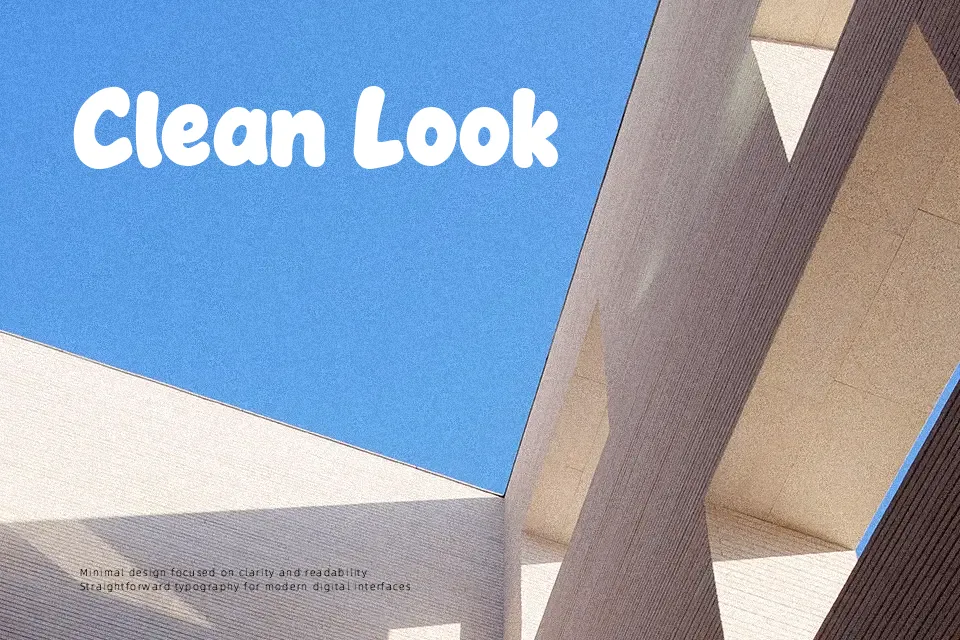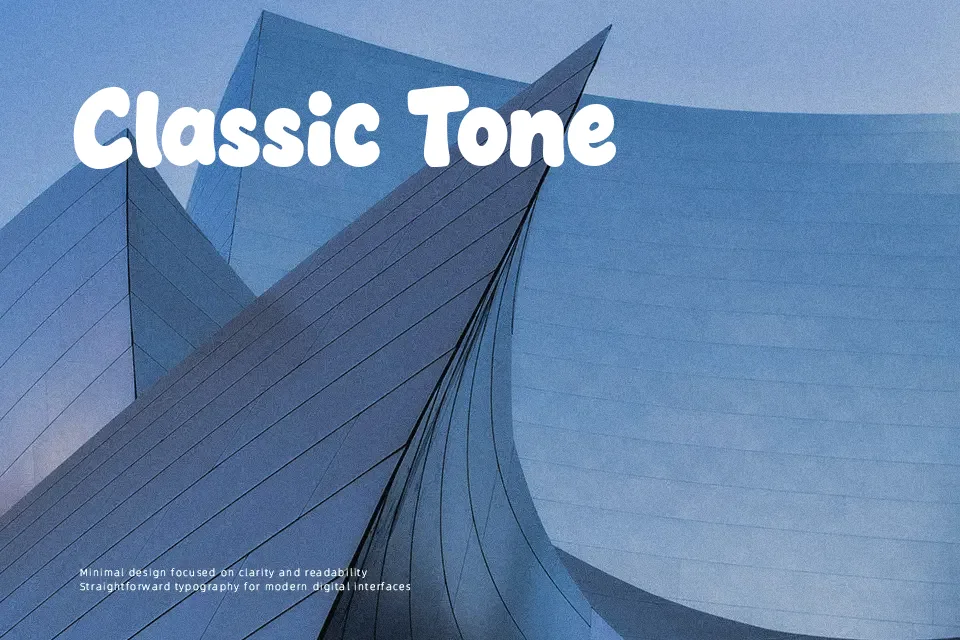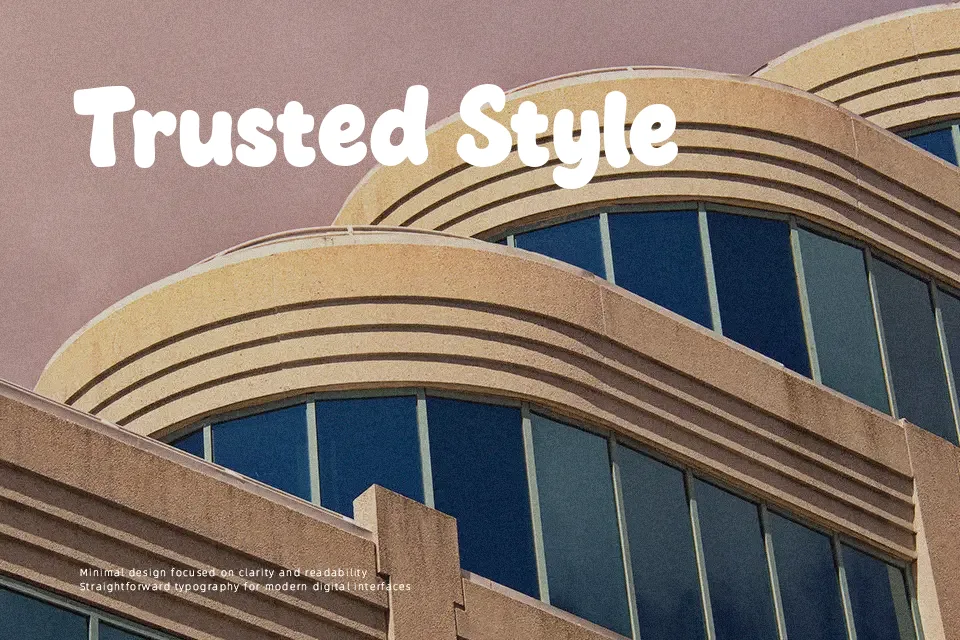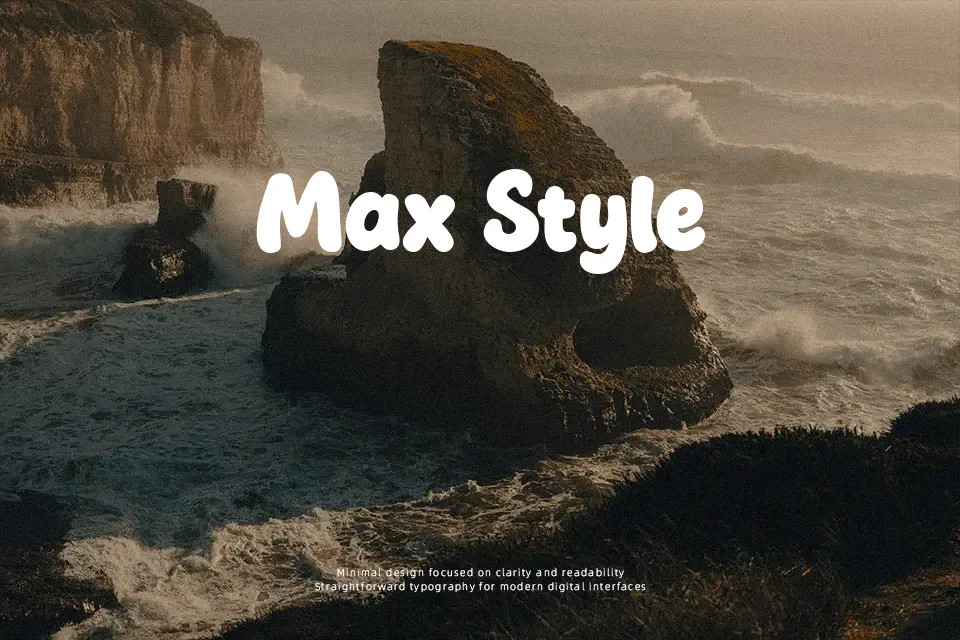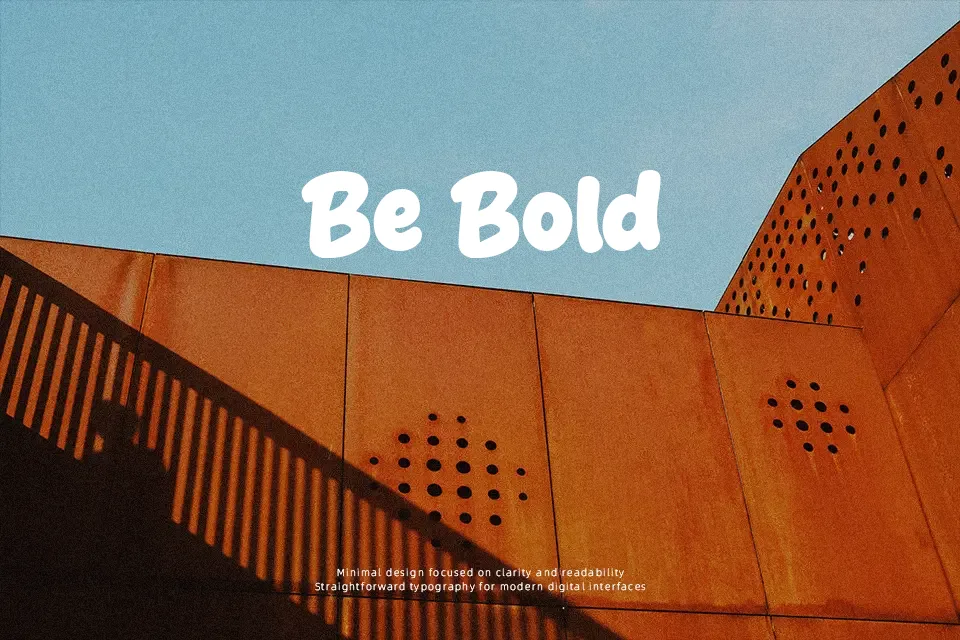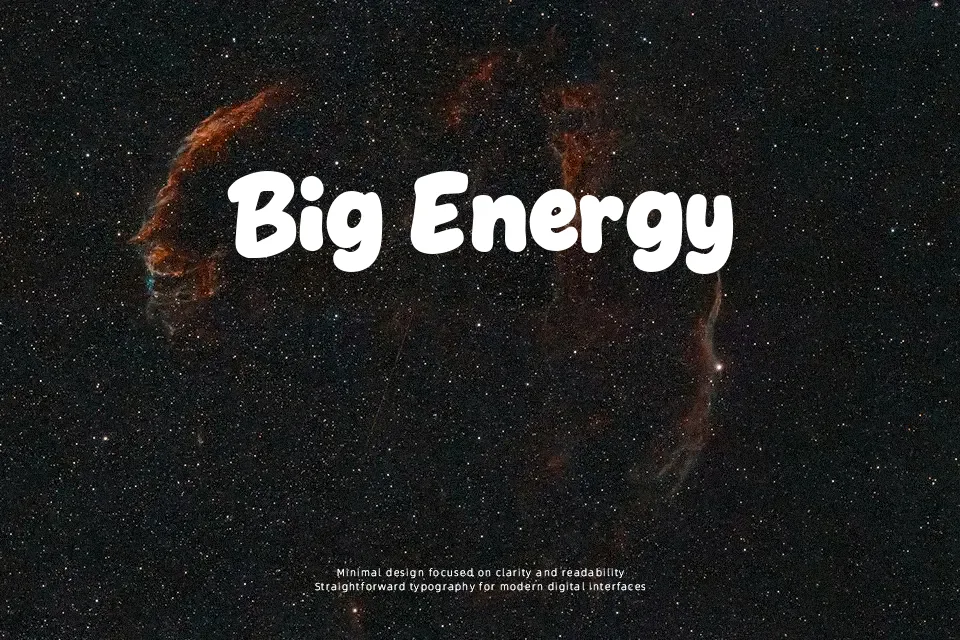
Biscuit Glitch Font
Designed by BlackFridayFont FMF
Biscuit Glitch is a delightful, rounded display typeface characterized by its thick, bubbly strokes and hand-drawn structure. The characters maintain a bold yet soft presence, utilizing generous curves and a consistent weight to project an approachable, casual style. It captures an animated essence that easily brightens up a layout. This energetic design performs well in playful apparel branding, colorful packaging, or festive event posters where a lighthearted tone is necessary. However, due to its distinctly casual appearance, it struggles in corporate environments or dense body text where strict legibility and serious professionalism matter most. Compared to rigid geometric alternatives, Biscuit Glitch feels much more organic, providing a distinct identity for imaginative, youth-oriented projects.
– Engaging children’s book titles
– Vibrant product packaging for toys
– Casual party invitations and event posters
– Professional corporate reports
– Lengthy paragraphs or small body text
– Luxury or high-end fashion branding
Perfect for branding, invitation, and kids, with a cute and cartoon style.